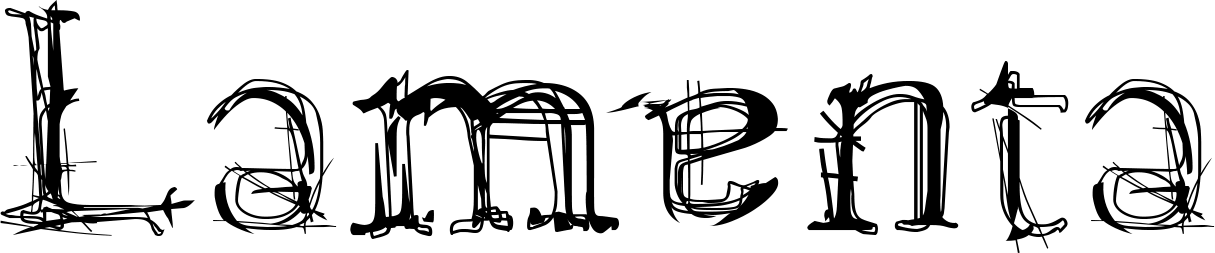
Lamenta Font
Designed byDawnland
There come time to time projects like comic books, movie posters, and Halloween flyers that you need to create a spooky vibe, if that is the case, then you require a scribbled font like Lamenta. With its careless and unique hand-drawn design, this emo font would be the perfect choice for the job.
This font comes with a great collection of characters containing both uppercase and lowercase of the alphabet and very few punctuation marks, and you don’t get any numbers.